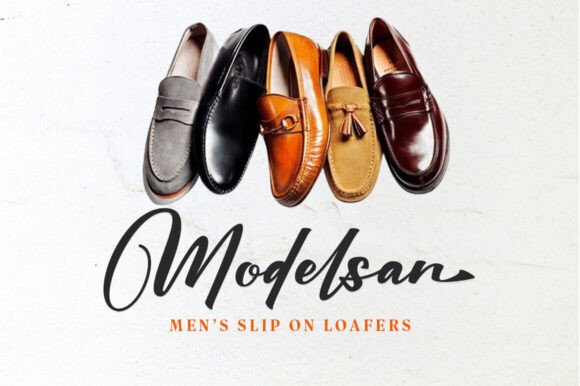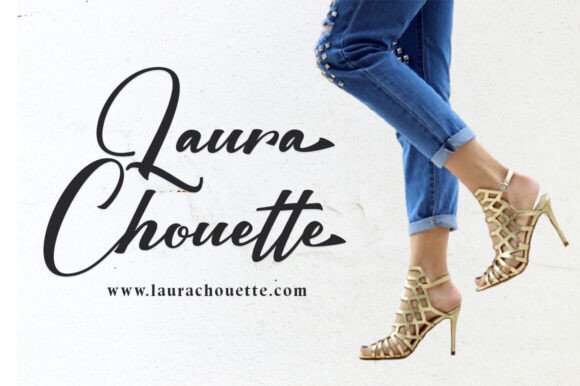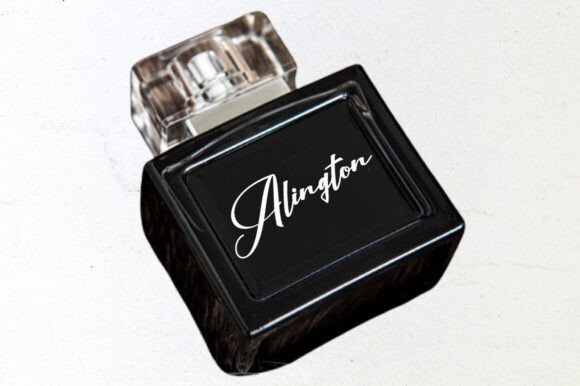
Introduction to Mega Selgin Font
Mega Selgin Where Ink Dances with Nature.
” This script font captures the effortless grace of handwritten calligraphy, infused with a touch of the organic, as if inspired by the winding paths and textured foliage of the natural world Its flowing strokes and confident curves lend a personal, sophisticated touch to any project.